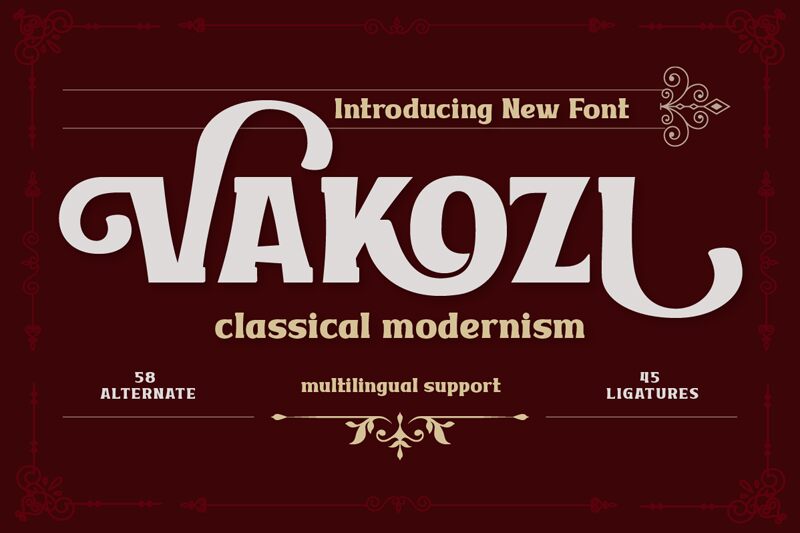
VAKOZITRIAL Regular
The Vakozi font is full of retro charm with its fat, bold stokes and sharp angular forms reminding one of the past. This display typeface created by Twinletter can not be missed due to its sturdy aesthetic appearance. The unique letters, having a definite linearity and proportionality for a powerful visual effect that seems eternal and industrial.
Vakozi is also very flexible in terms of usage, making it possible to incorporate it in many areas such as attention-grabbing headlines or brandings, product packaging designs or editorial layouts. Therefore, this thick typeface’s vintage spirit suits well any project related to car industry, fashion design or heavy industry where a vintage mood, industrial aesthetics or loud advertising appeal could be necessary.